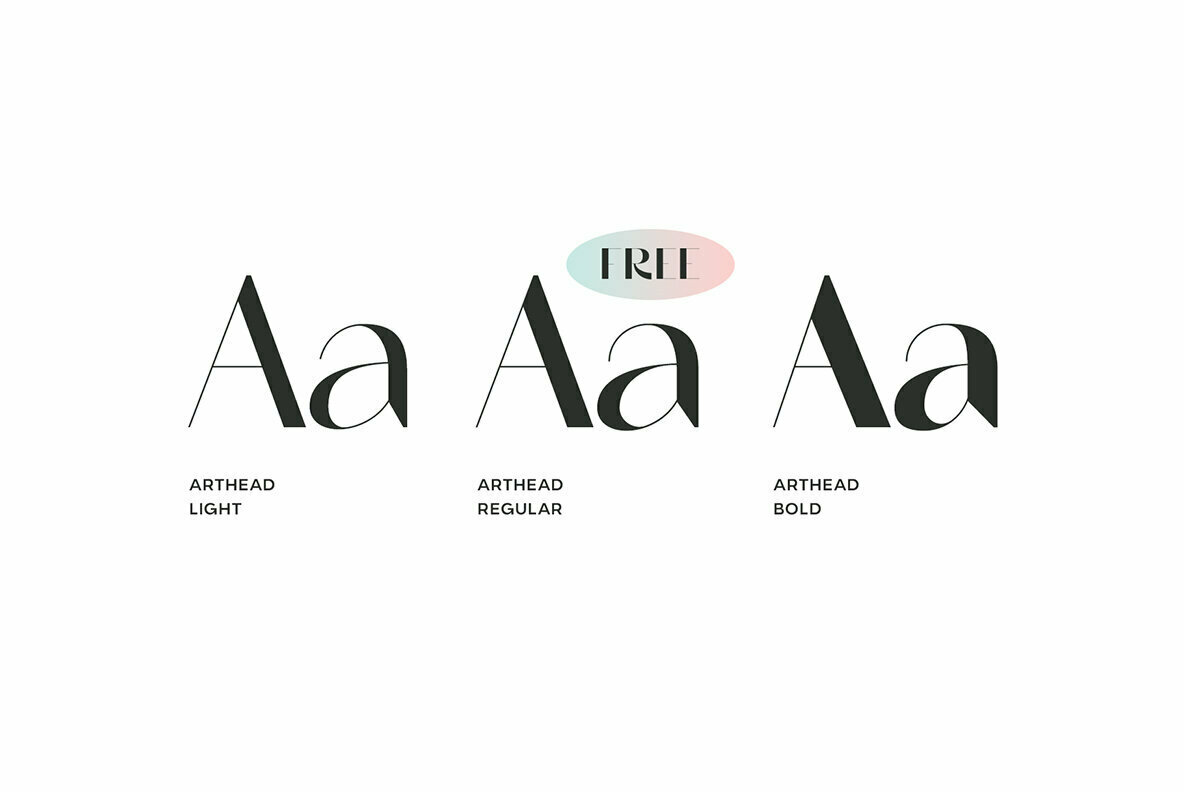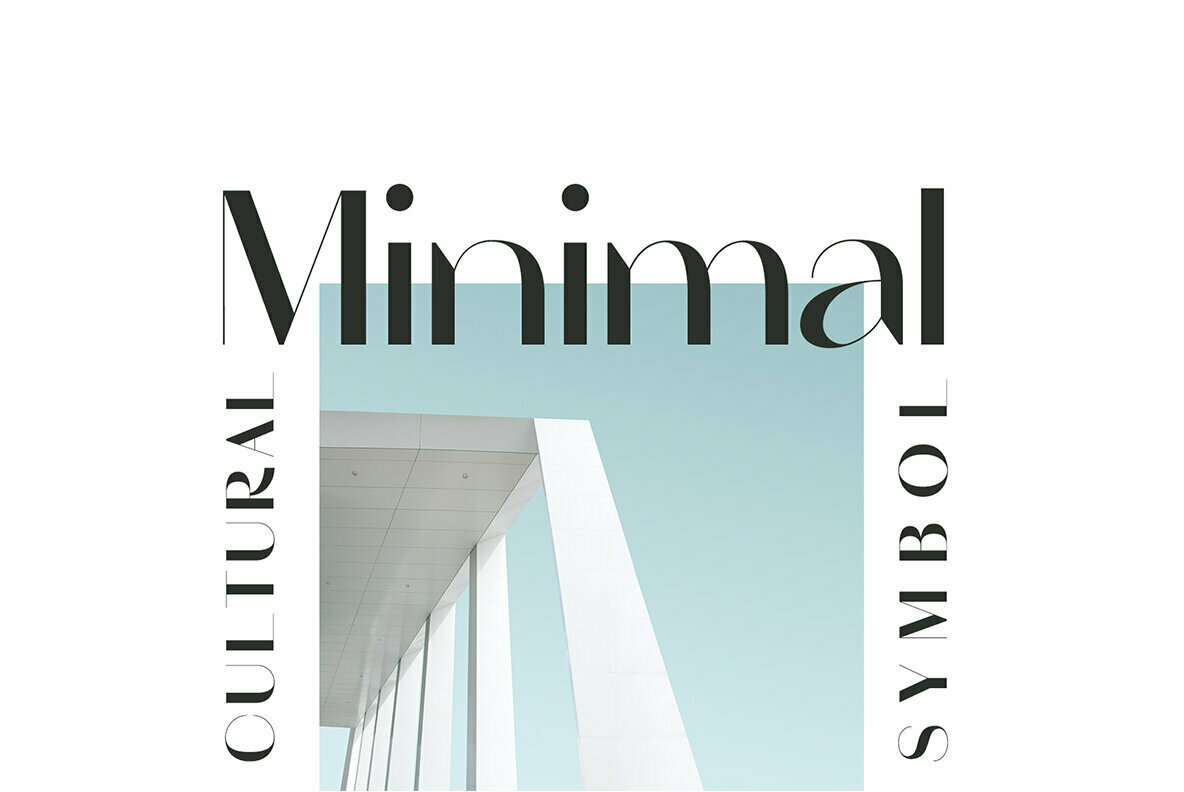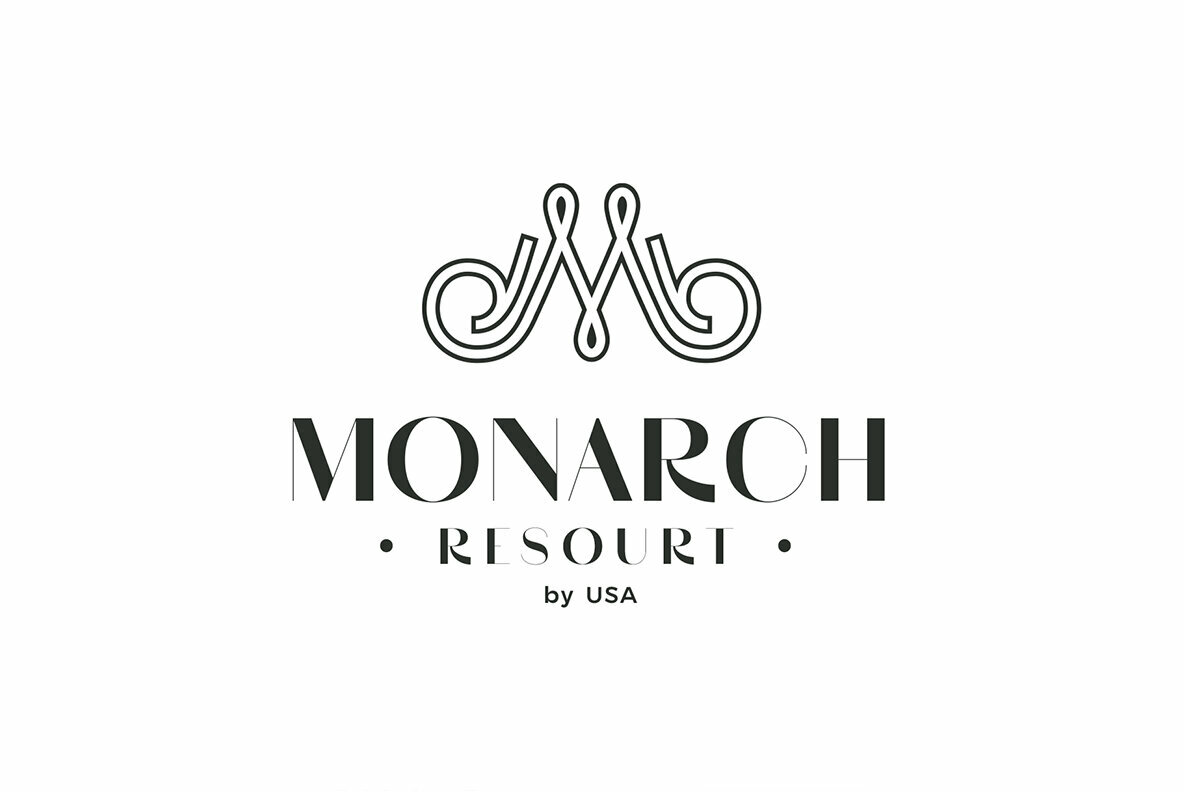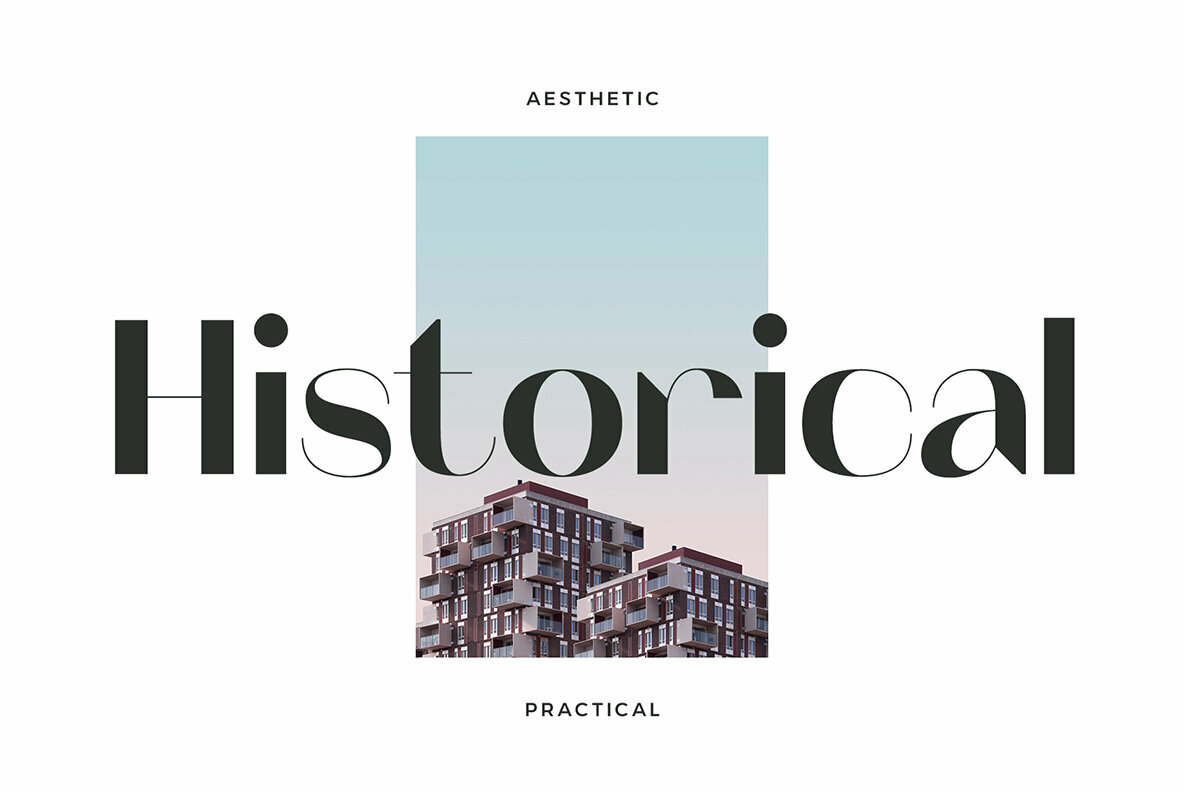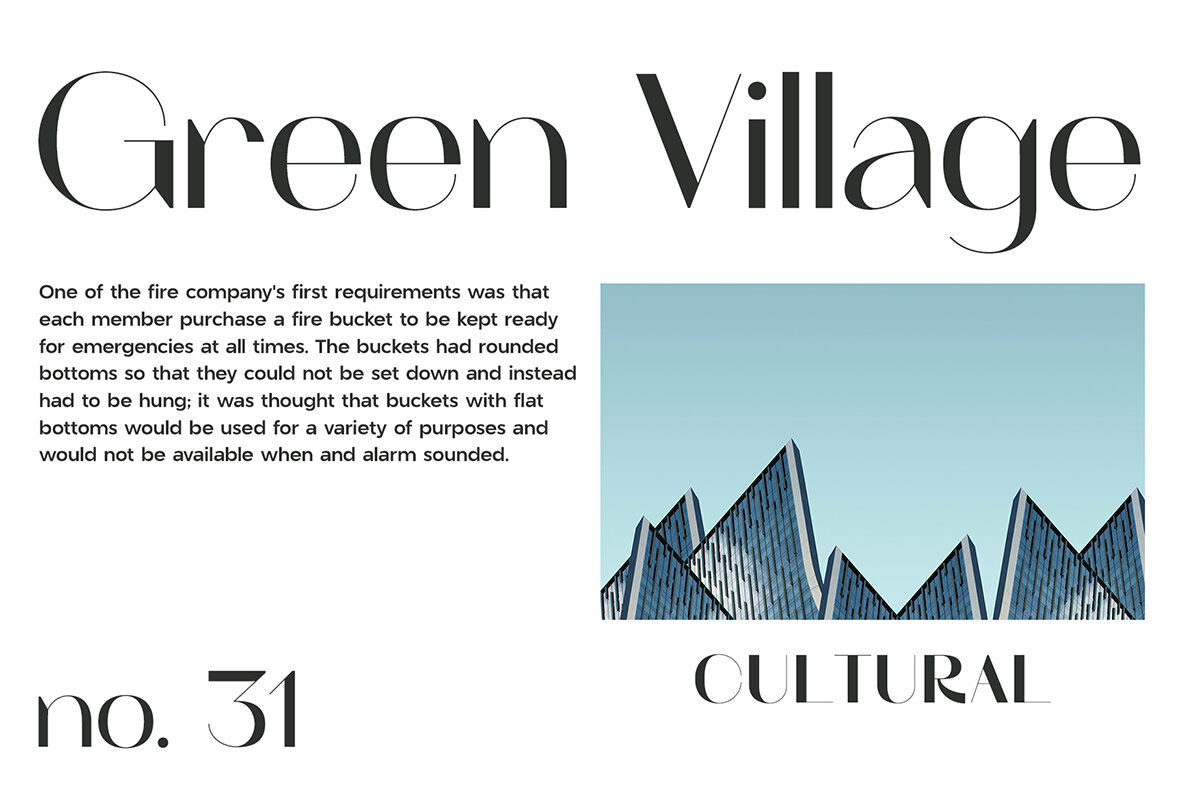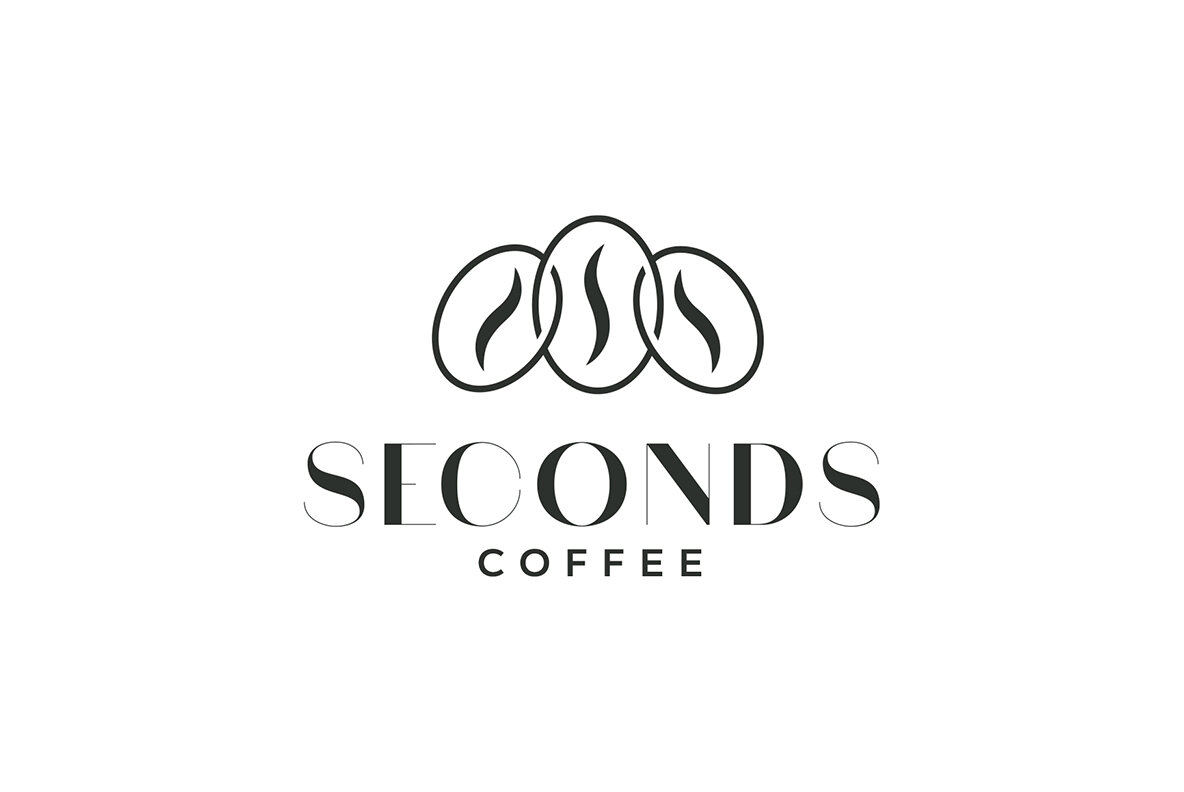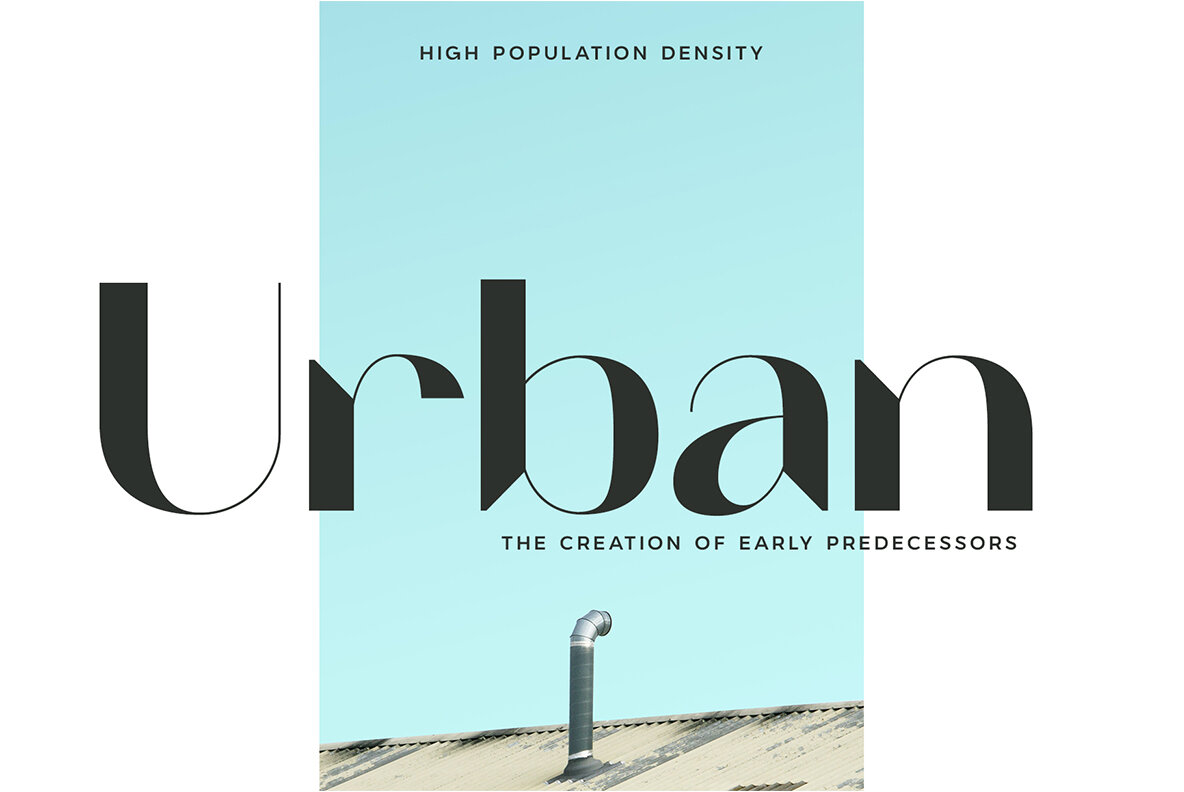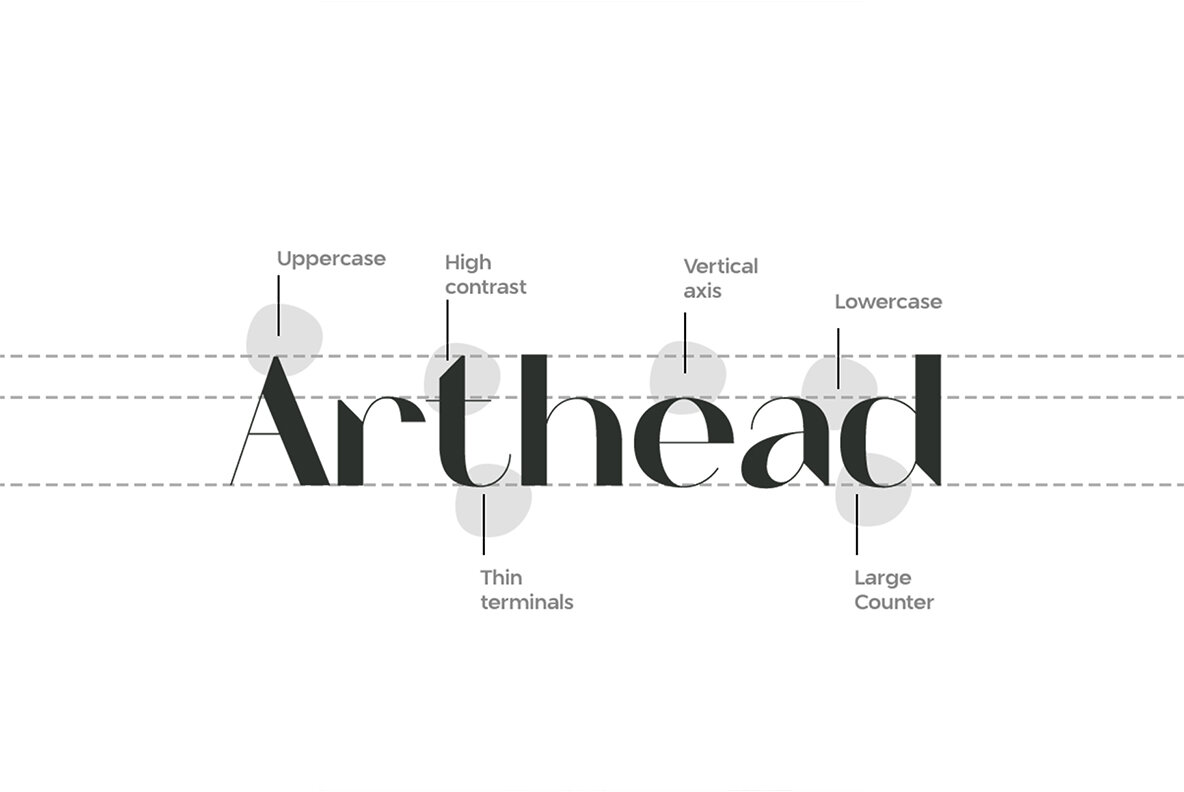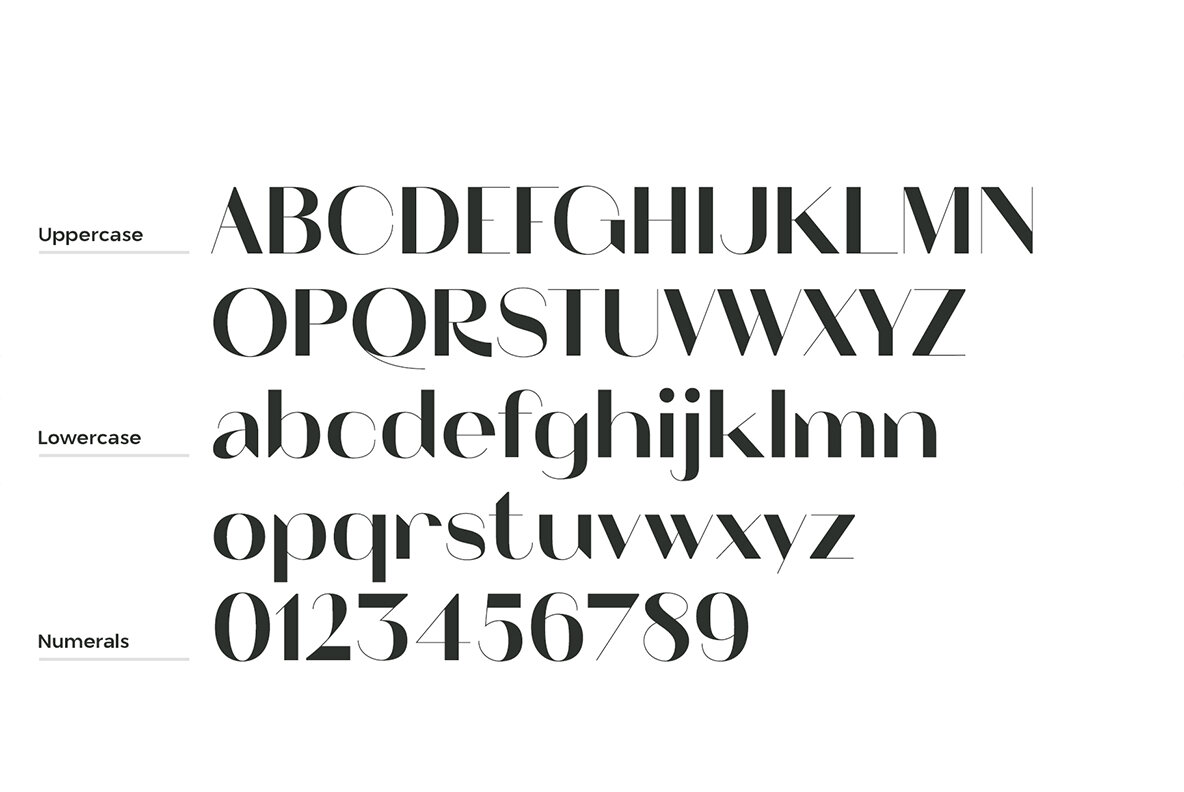
Arthead Font
Happy to present Arthead, a modern sans serif and slightly decorative font family that will add to your work a stylish and memorable touch. Arthead is not that complex in structures and shapes, being quite minimal, but has an extreme contrast in strokes, that gives the impression of negative space.
Arthead is designed on a vertical axis for a modern look and has diversity in its proportions, with thin terminals and descenders and large counters. This sophisticated, ultra-modern font has three weights, Arthead Light, Regular and Bold. Each weight has 103 glyphs, an uppercase and lowercase alphabet, numerals and standard Latin script support. Arthead is the perfect fit for headlines, titling, large-format prints and posters or any work that requires a clean yet stylish design.
- Standard Latin script language support
- Upper and lowercase font